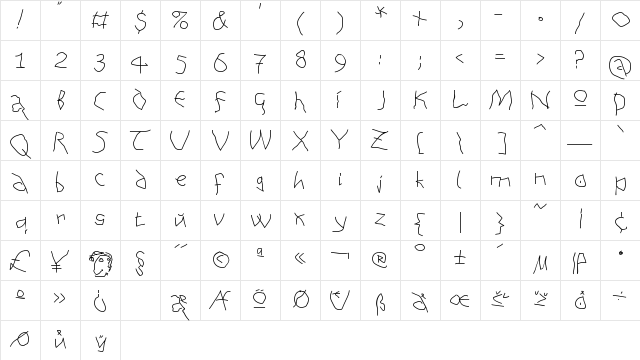
Complete AnAlphaBetIsm-Medium Regular glyph index. Displaying only characters natively supported by AnAlphaBetIsm-Medium Regular font.
AnAlphaBetIsm-Medium is a composed and adaptable typeface that performs quietly and consistently across a wide range of design contexts.
Pro Tip: Use AnAlphaBetIsm-Medium in both headline and body roles to test its range before committing to a single application.